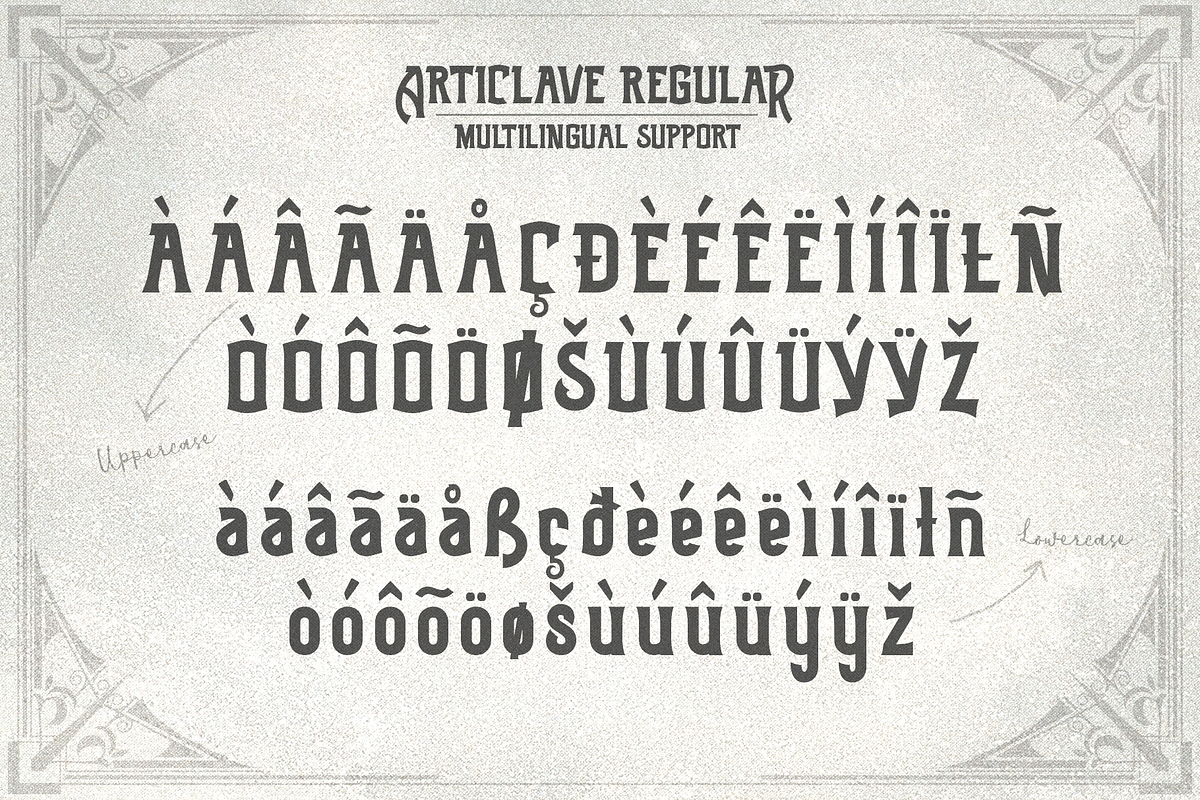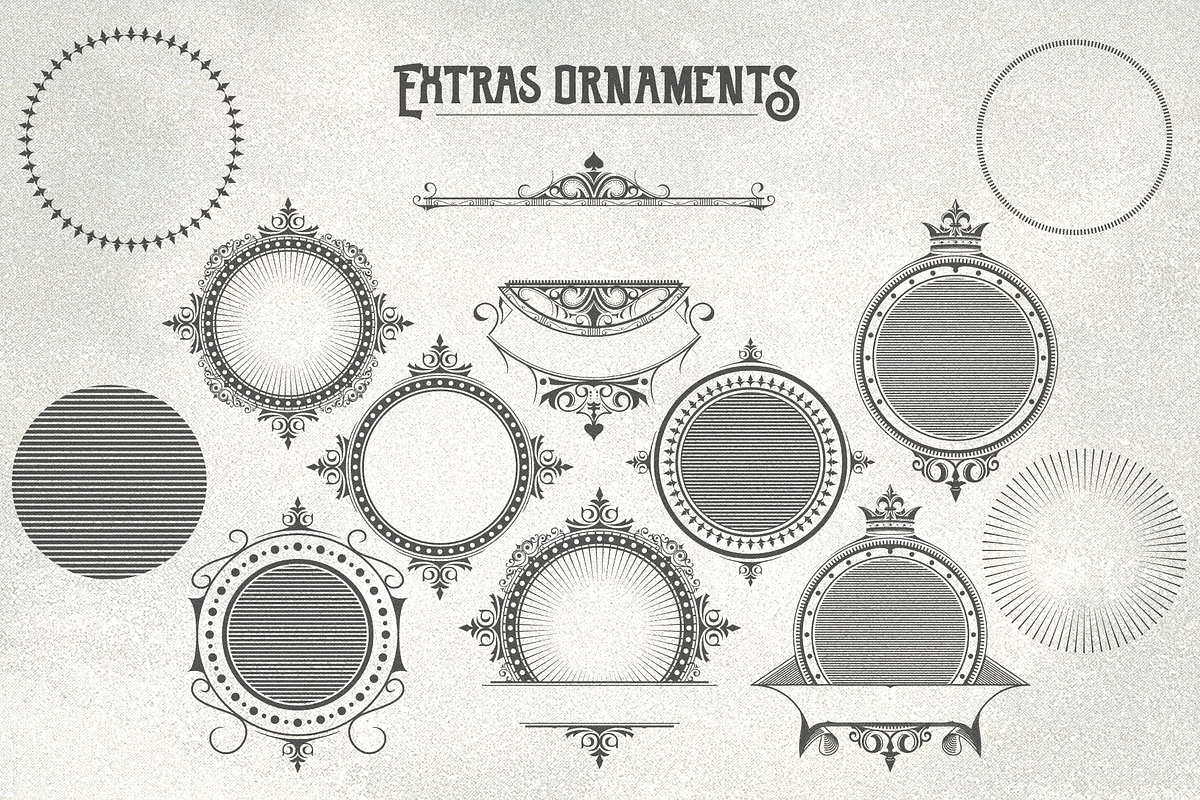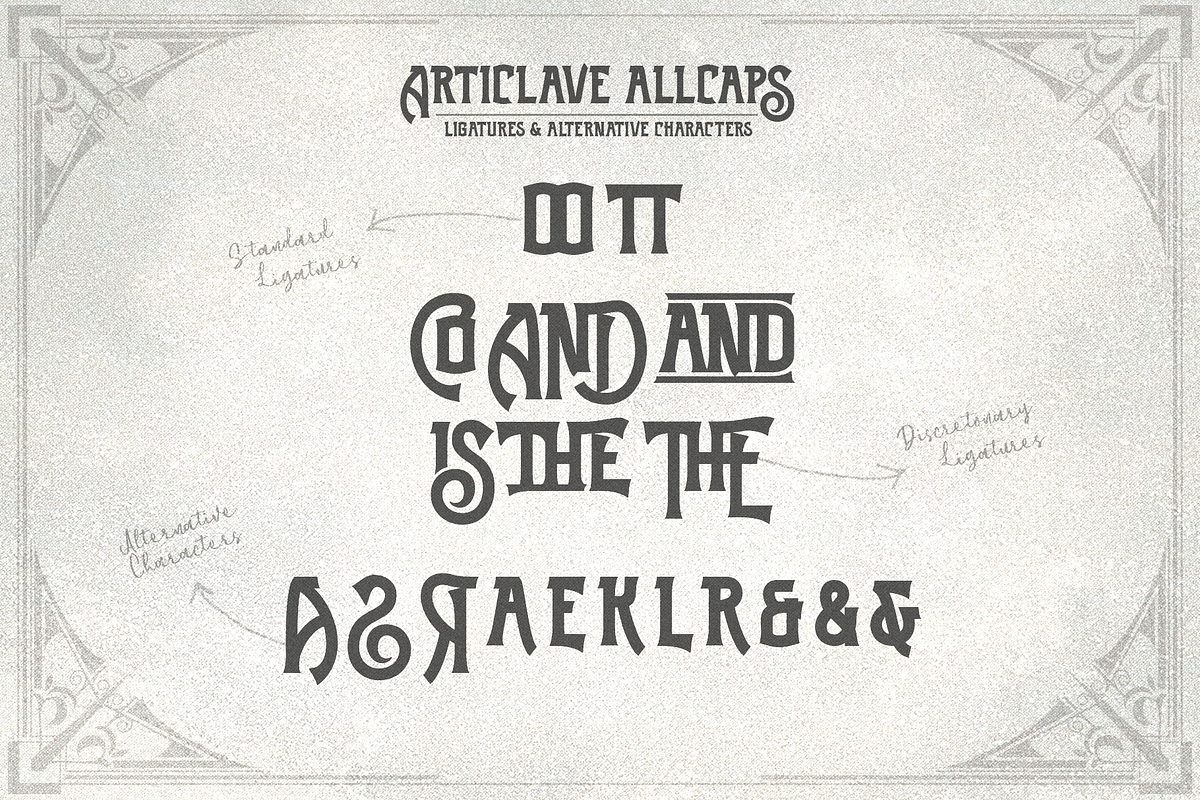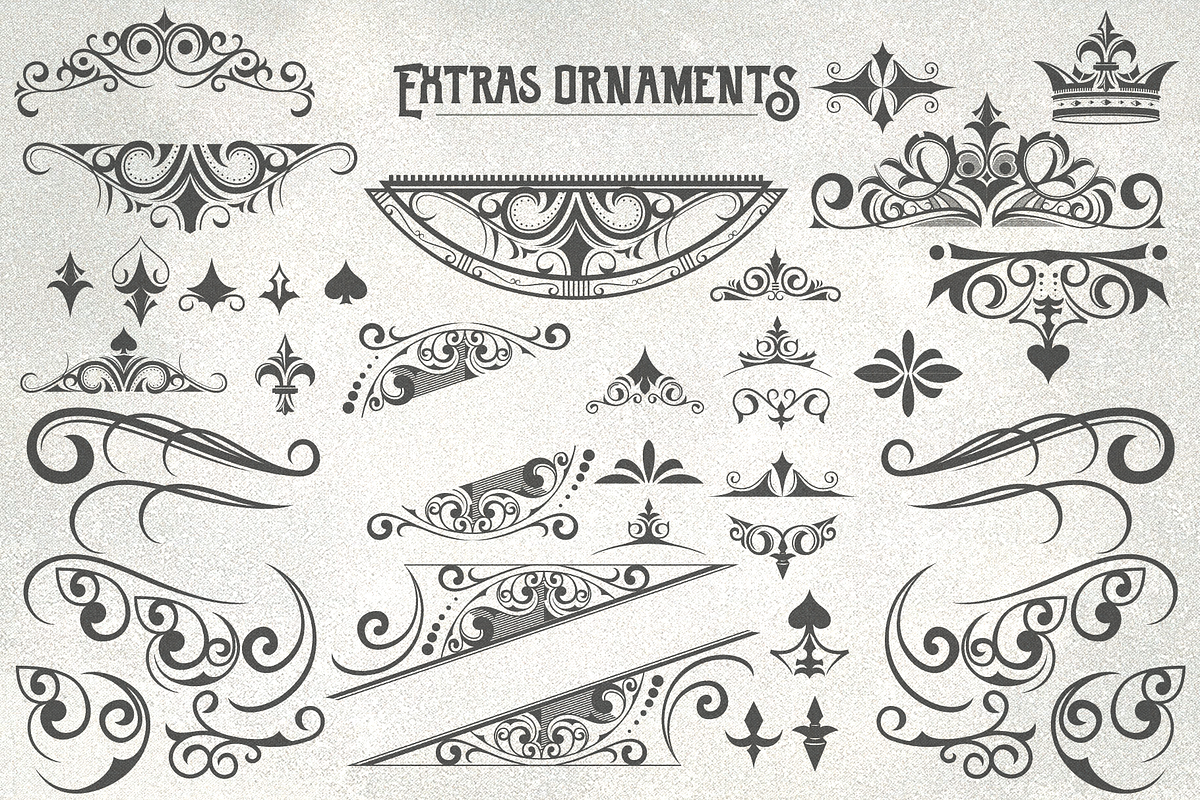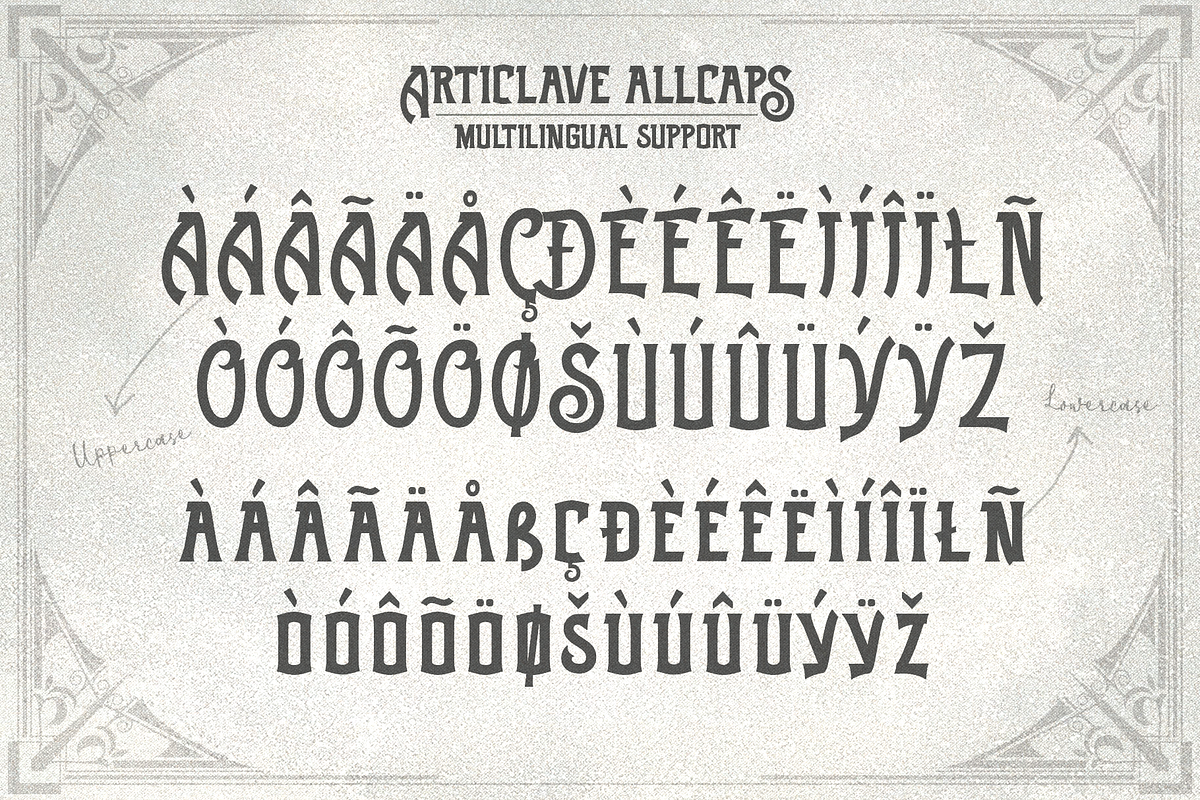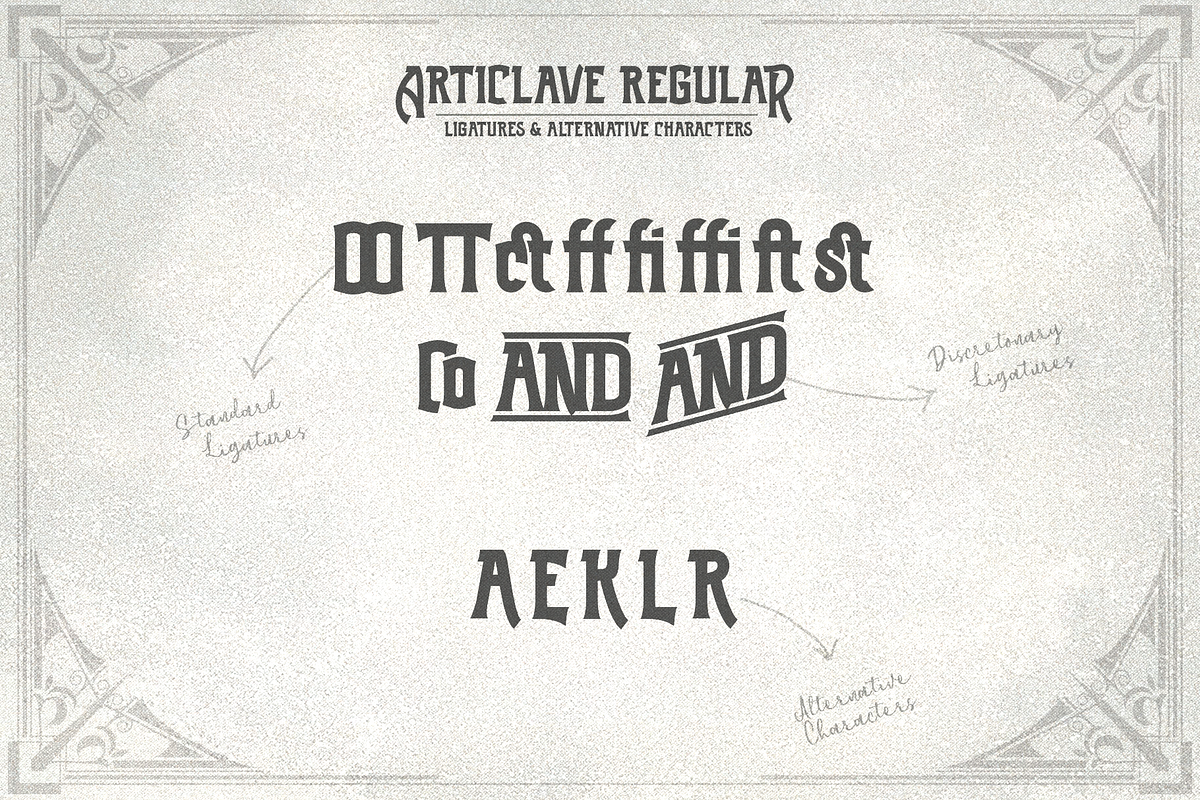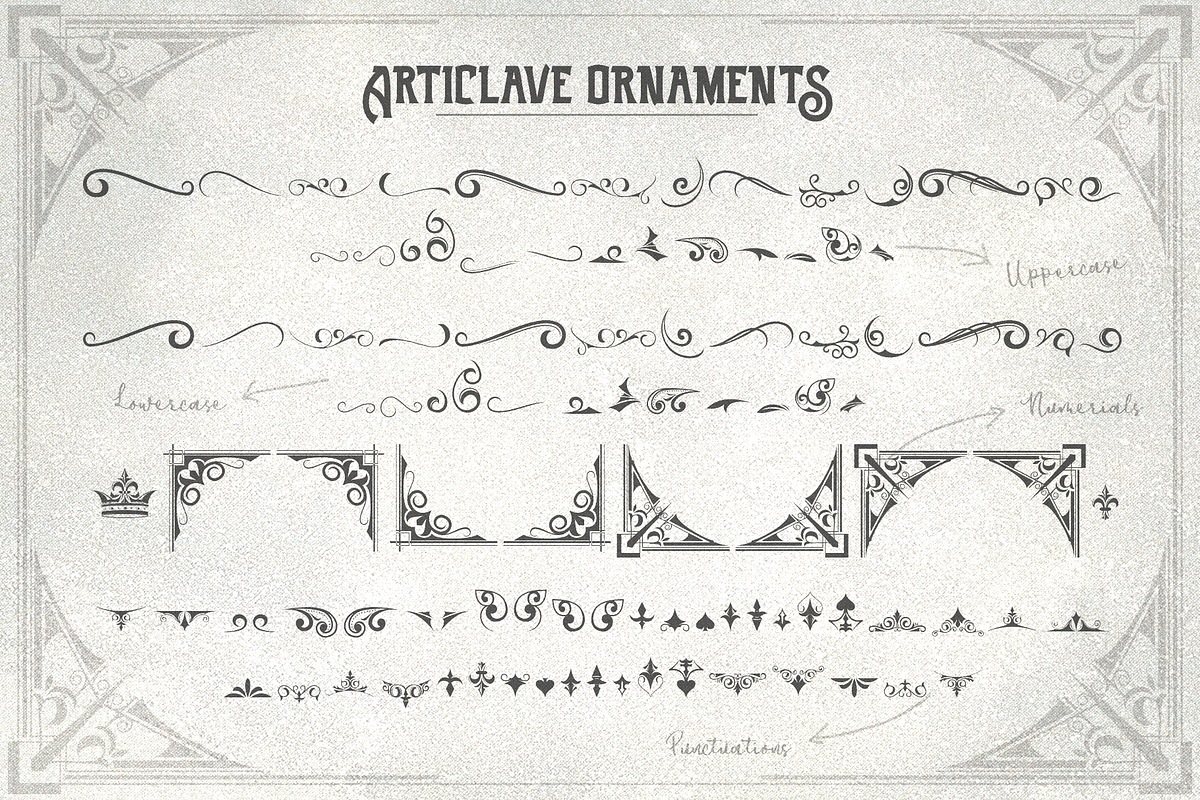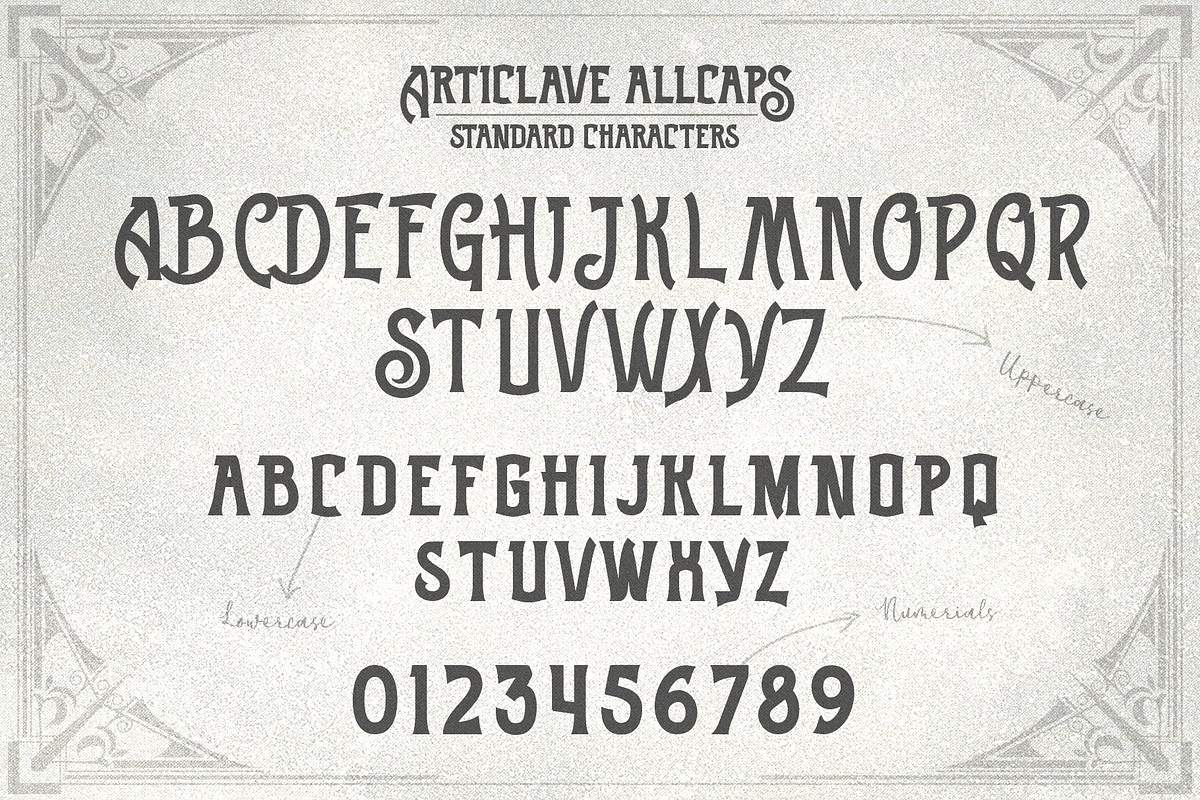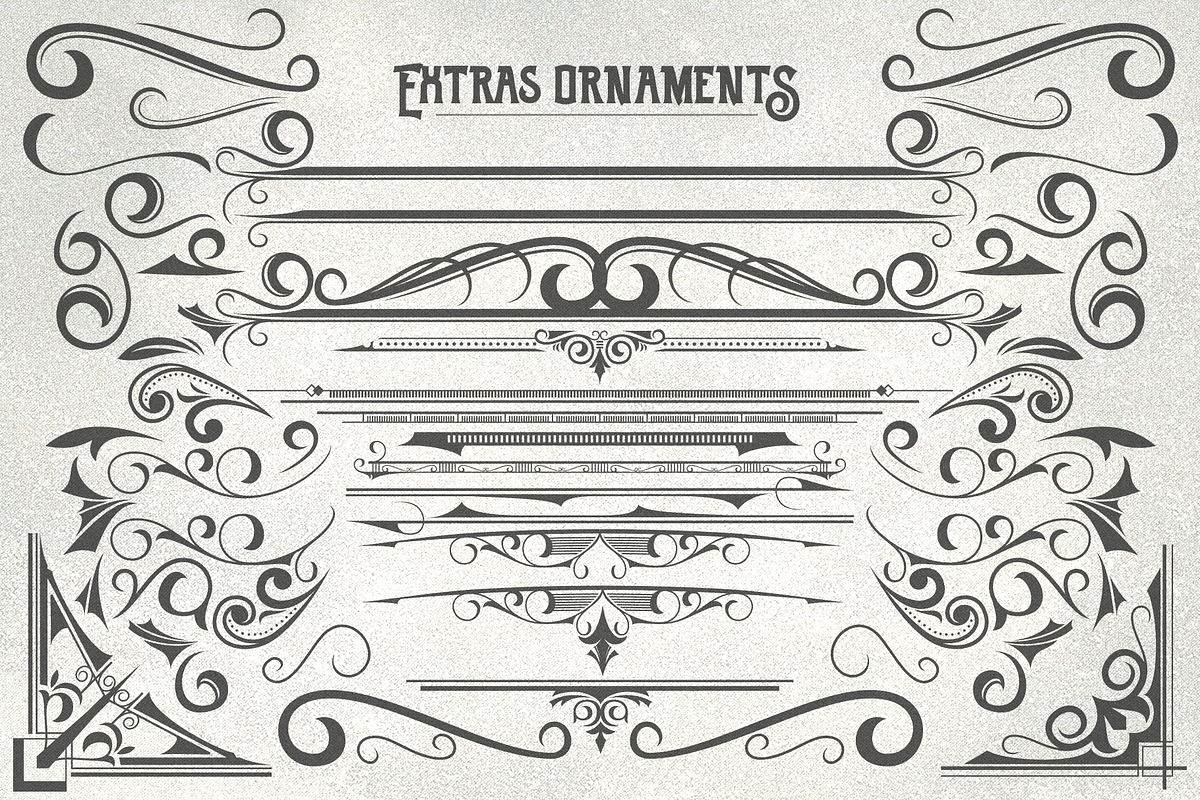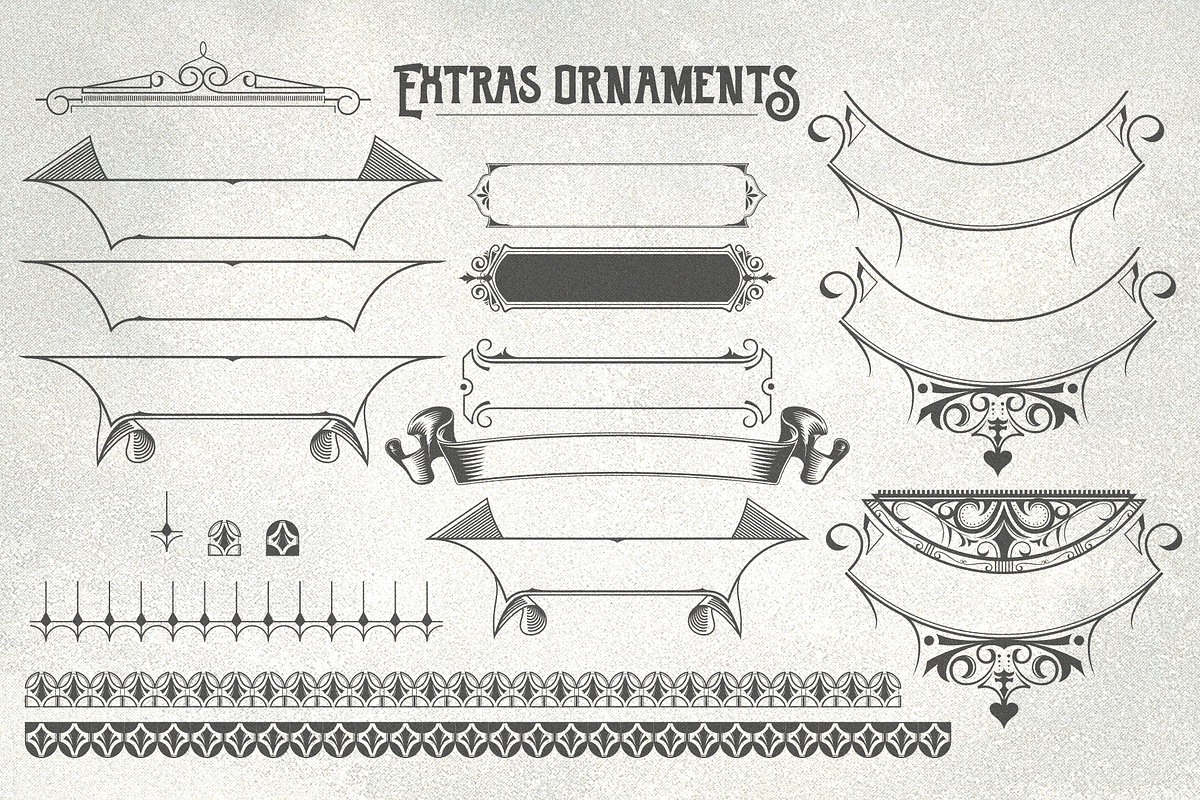
Articlave
Trully inspired from vintage labels and packages, Articlave comes in three styles, Regular, AllCaps and Ornament version. Both combined perfectly to create vintage label, headlines, logotypes, signage, posters, greeting cards, letterhead, t-shirt and many more works.